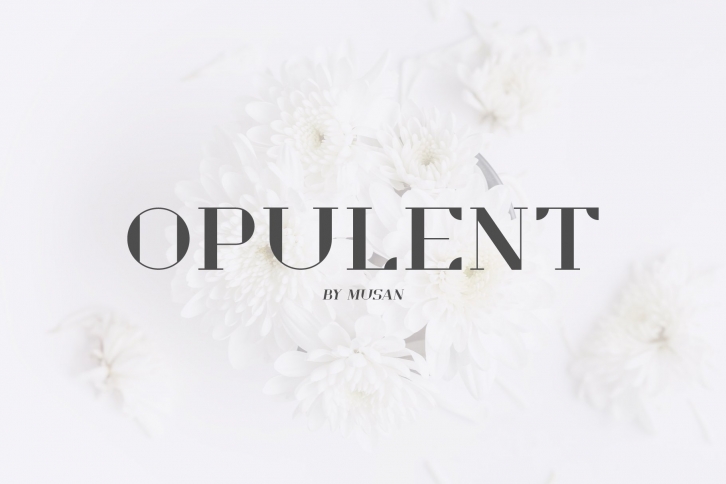
Opulent is a modern, minimal and classy serif font that is perfect for all your project. This font would pair perfectly with a script/signature or handwritten style text or as you can see in the images above, it looks fab by itself!
This font contains:
- all uppercase alphabet
- numbers
- multi language
- basic punctuation